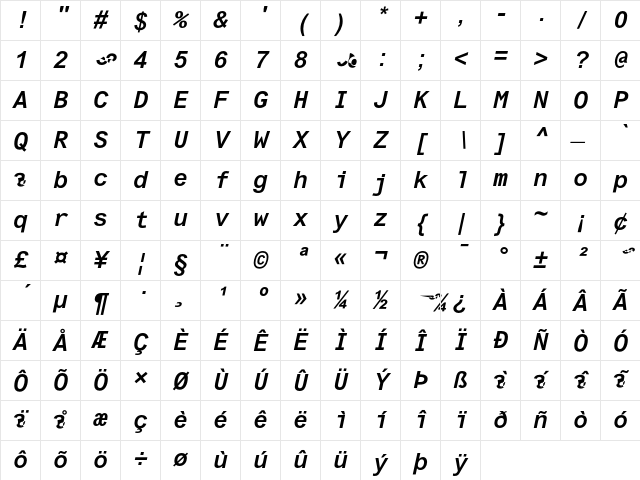
Arial Monospaced MT Bold Italic
Complete Arial Monospaced MT Bold Italic glyph index. Displaying only characters natively supported by Arial Monospaced MT Bold Italic font.
Design Context for Arial Monospaced MT
Arial Monospaced MT uses fixed-width spacing throughout, giving it the structured, systematic character associated with coding environments and technical documentation. The slanted form adds forward momentum and visual energy. Its bold stroke weight gives it real presence on the page.
Pro Tip: Use Arial Monospaced MT with slightly increased line-height for extended reading - fixed-width spacing can feel dense in longer passages without extra breathing room.